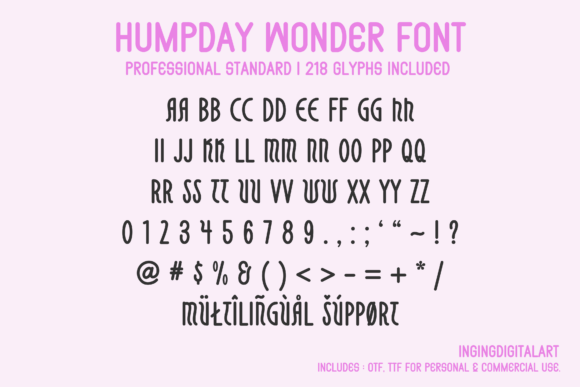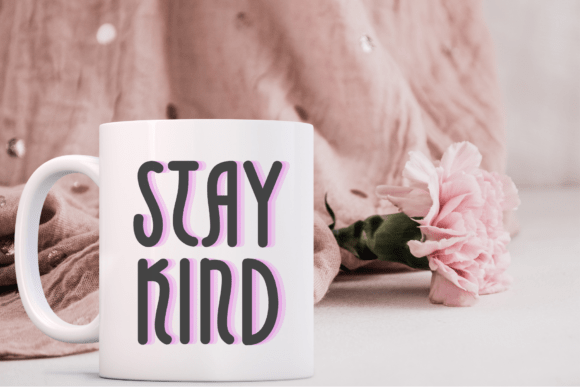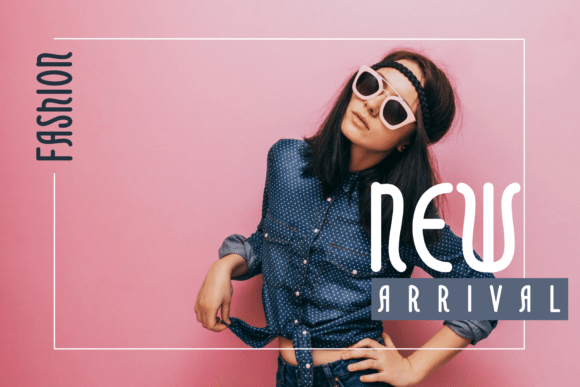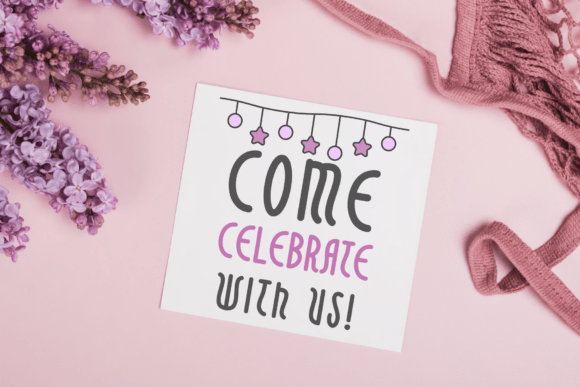
Discover the Magic of the Humpday Wonder Font
It’s that one moment on Wednesday, when the creativity starts flowing, and you’re itching to bring your ideas to life. You’ve spent hours brainstorming, and the perfect font is all that’s standing between you and a stunning design. That’s where the Humpday Wonder Font comes in – a vintage-inspired beauty that’s sure to elevate your projects and leave a lasting impression.
This beautifully condensed typeface is a game-changer for designers, offering a unique blend of curves and classic charm. Whether you’re working on social media graphics, crafting invitations, or developing a brand identity, the Humpday Wonder Font is the perfect addition to your toolkit. With its all-uppercase letters, numbers, and essential punctuation, you’ll have everything you need to create stunning visuals that stand out from the crowd.
Humpday Wonder Font Key Features
- Font Family: Humpday Wonder
- Character Count: 500+ glyphs, including Latin, Cyrillic, and Greek alphabets
- Unique Characteristics: Hand-drawn, whimsical, and quirky design with a mix of modern and vintage elements
Humpday Wonder Font Review
I’ve had the chance to work with the Humpday Wonder Font, and I must say it’s a unique addition to any design project. ✨ The font’s quirky and playful personality can bring a lot of charm to digital and print materials. It’s perfect for those who want to add a touch of whimsy to their branding or marketing materials.
Here are some of the things that work well with the Humpday Wonder Font:
- ✨ Highly customizable: The font offers a range of weights, styles, and ligatures that can be easily customized to fit your design needs.
- ✨ Great for branding: The font’s unique personality can help establish a strong brand identity and differentiate your business from competitors.
- ✨ Versatile: The font works well in a variety of contexts, from digital screens to print materials like business cards and brochures.
- ⚠️ Limited legibility: In certain font sizes or contexts, the Humpday Wonder Font can be difficult to read, especially for those with vision impairments.
- ⚠️ Not ideal for body text: Due to its playful nature, the font is best used for headlines, titles, and other emphasis text, rather than large blocks of body text.
Overall, the Humpday Wonder Font is a great choice for designers who want to add some personality and whimsy to their projects. Just be sure to use it judiciously and in the right contexts to maximize its effectiveness.
Humpday Wonder Font: A Practical Application Guide
For best results, use the Humpday Wonder Font in bold or italic styles to add emphasis and visual interest.
For best results, use the Humpday Wonder Font in combination with other design elements, such as graphics and textures.
For best results, use the Humpday Wonder Font in conjunction with other design elements, such as images and charts.
The Humpday Wonder Font is suitable for a variety of design projects, including:
- Social media graphics and posts.
- Blog and article headlines.
- Business cards and